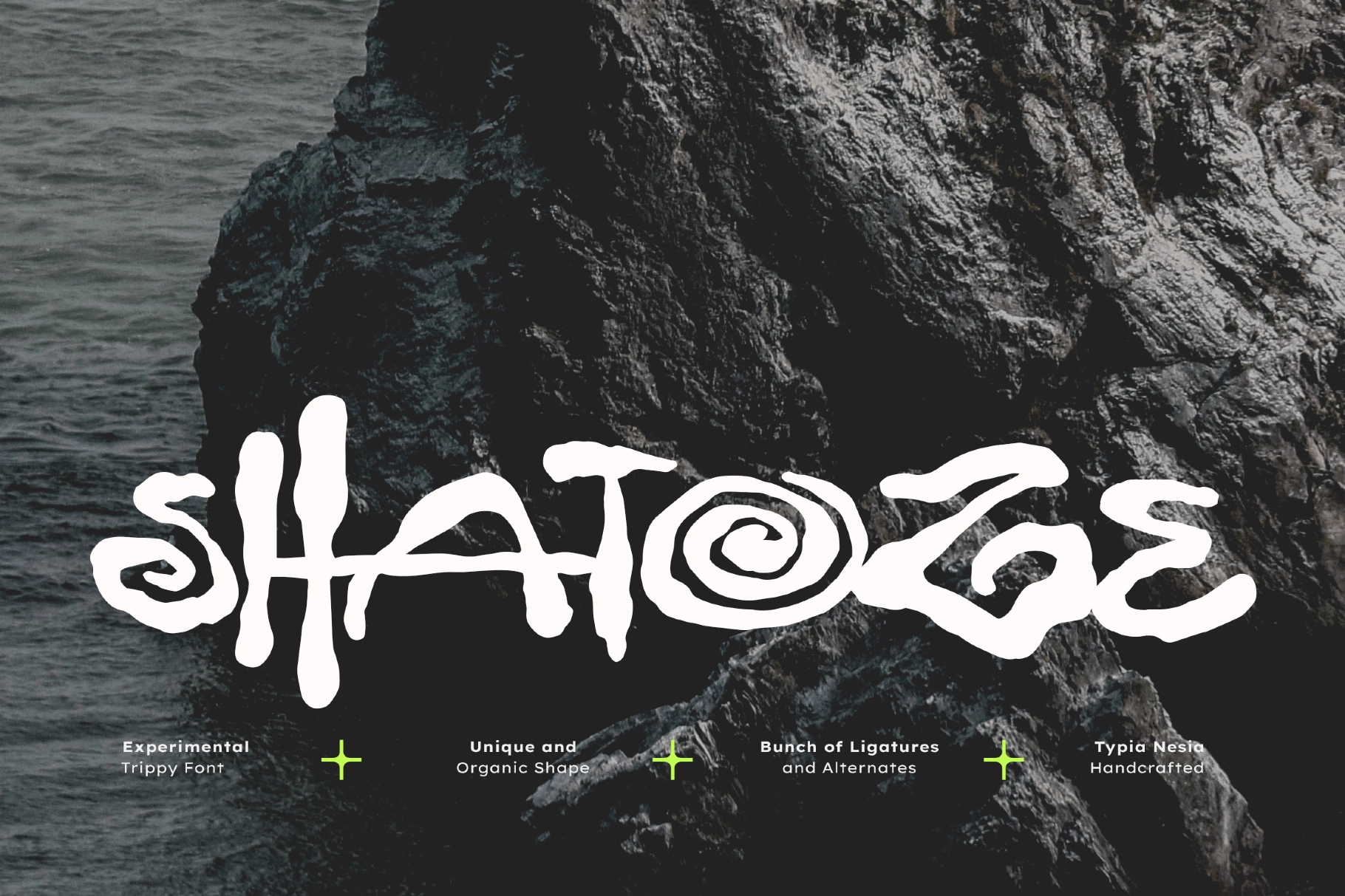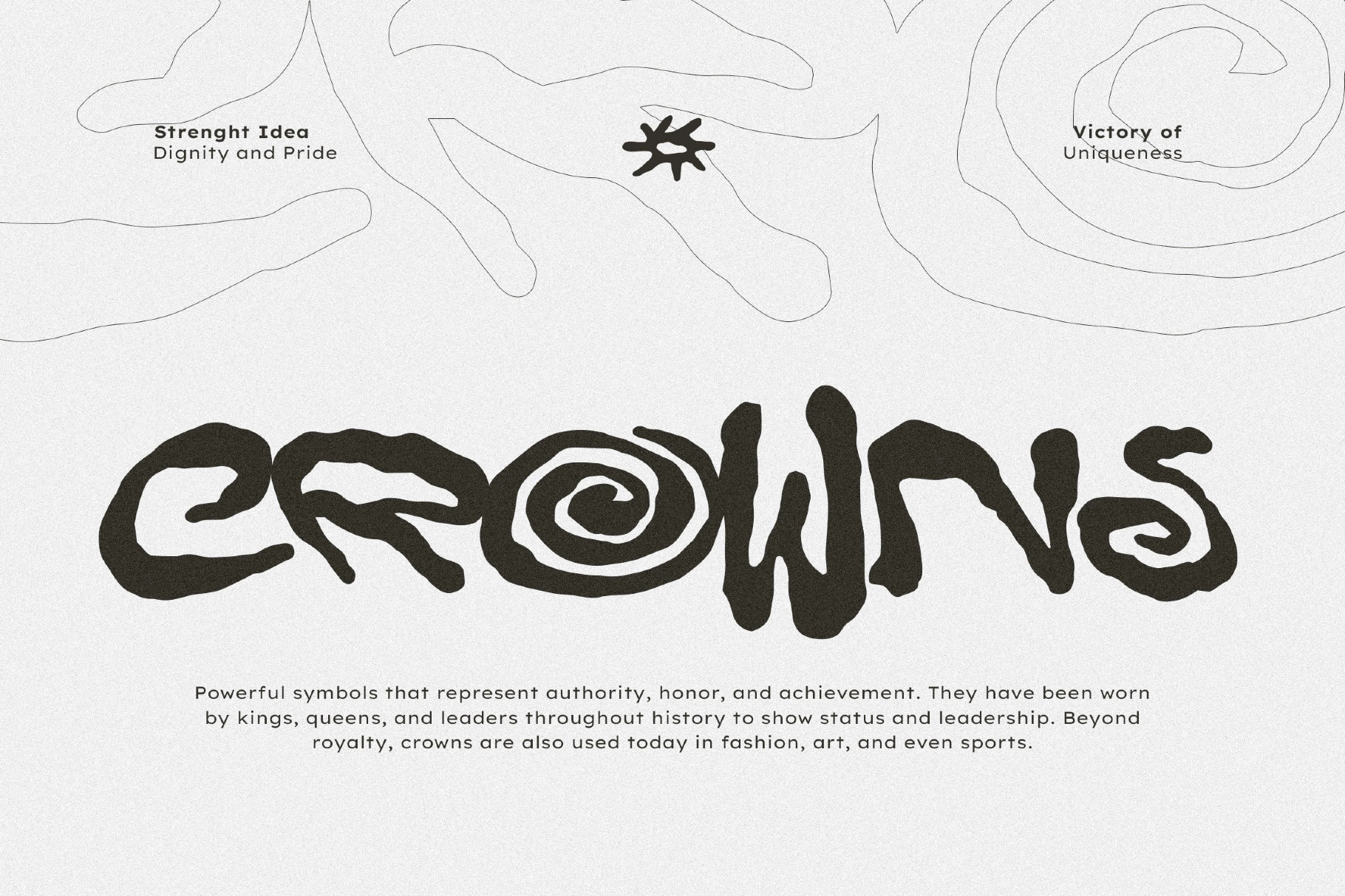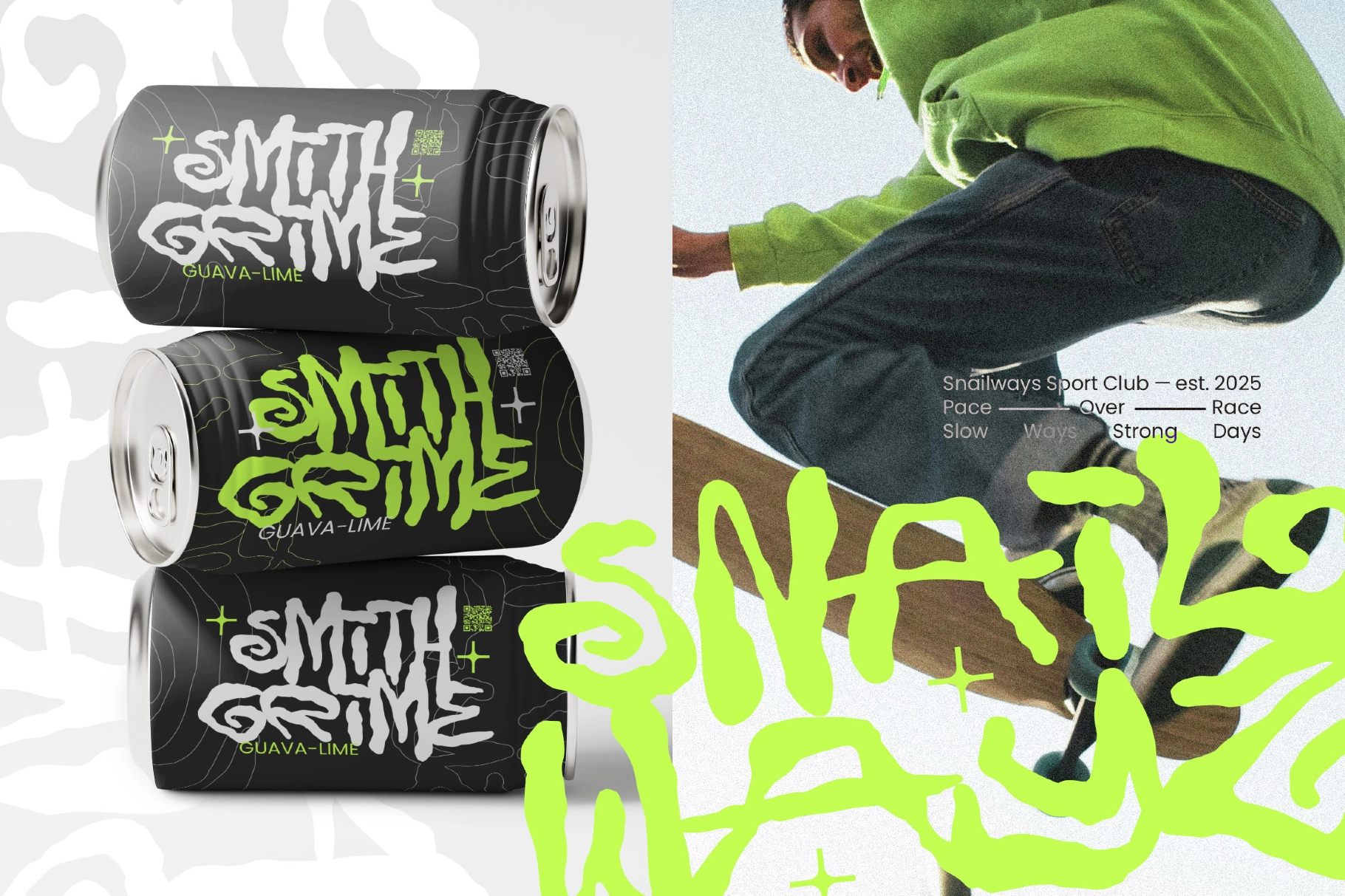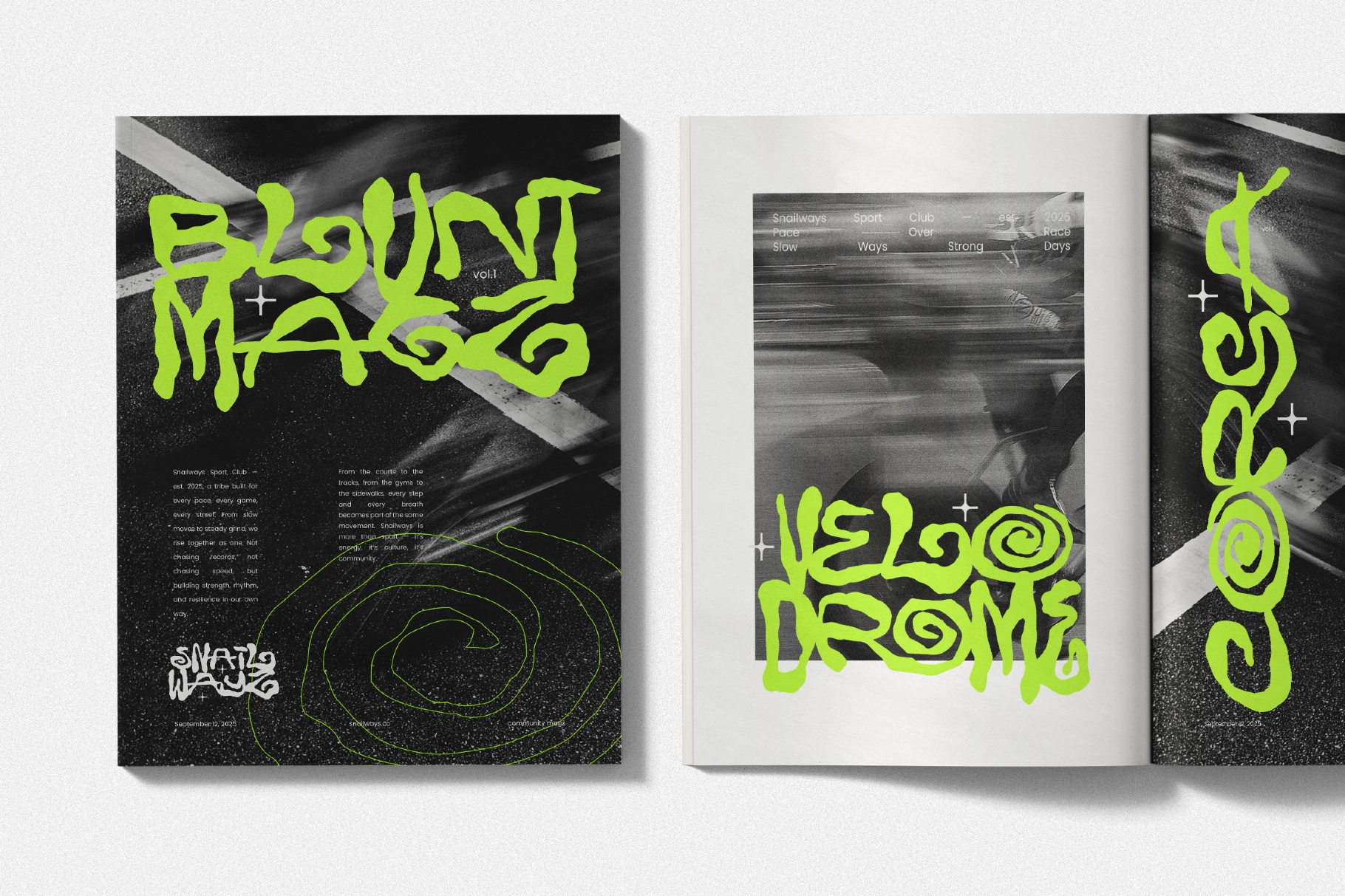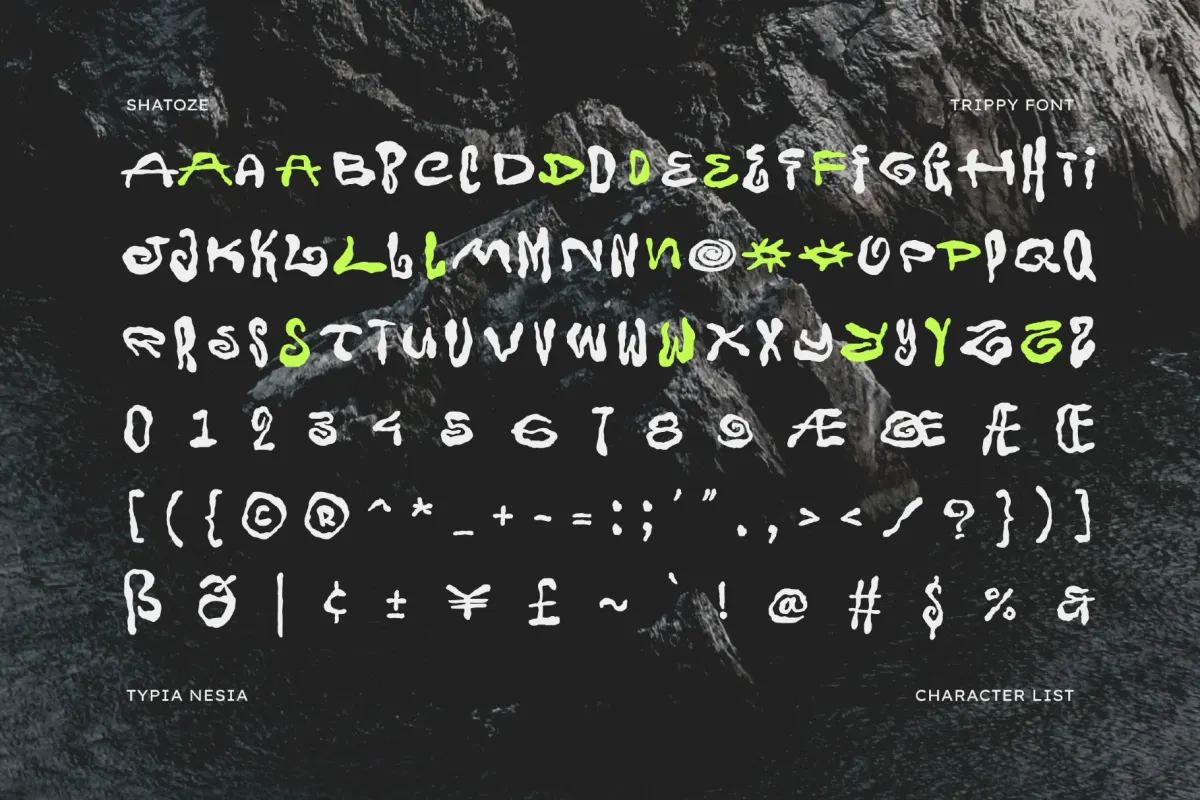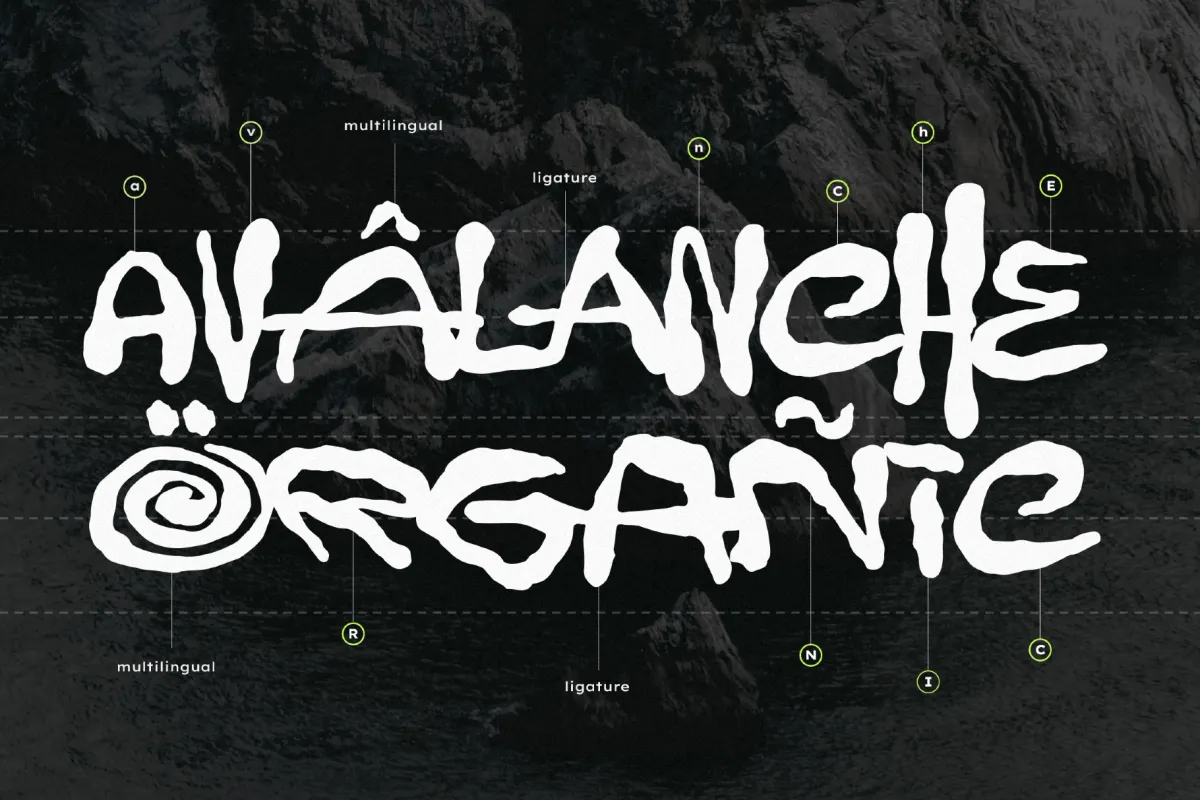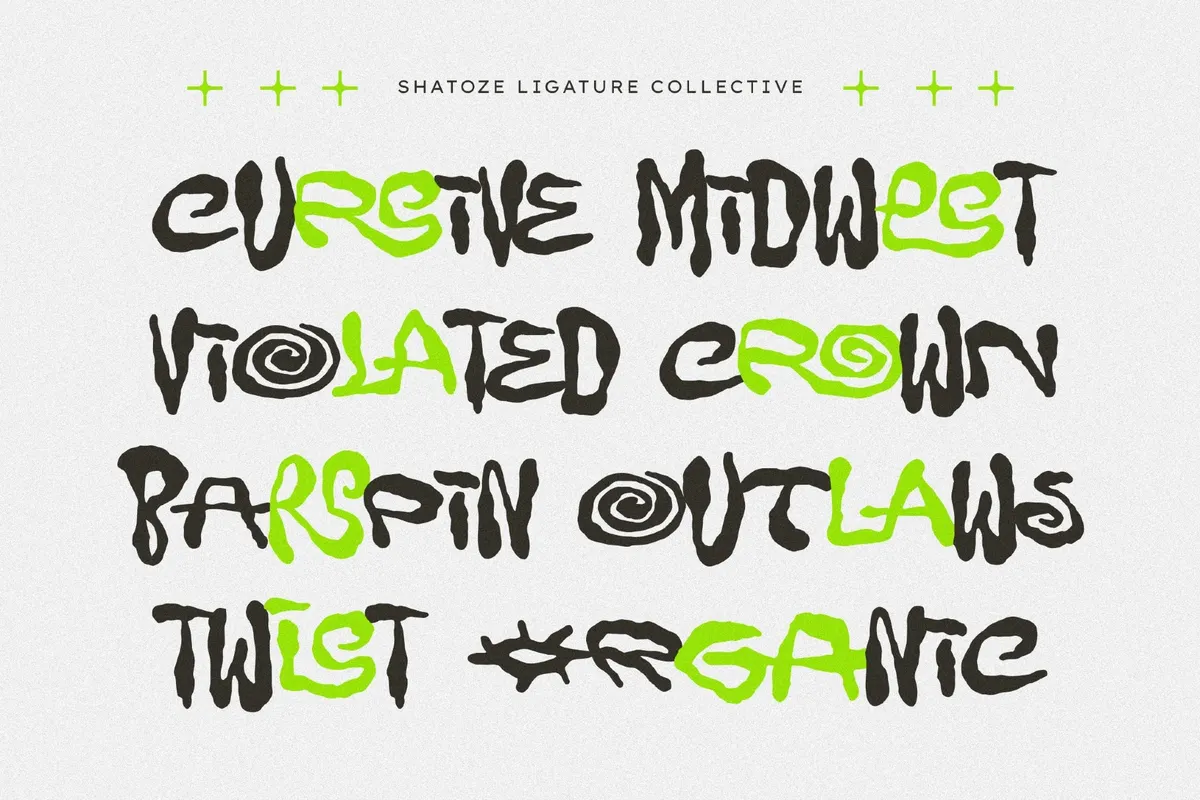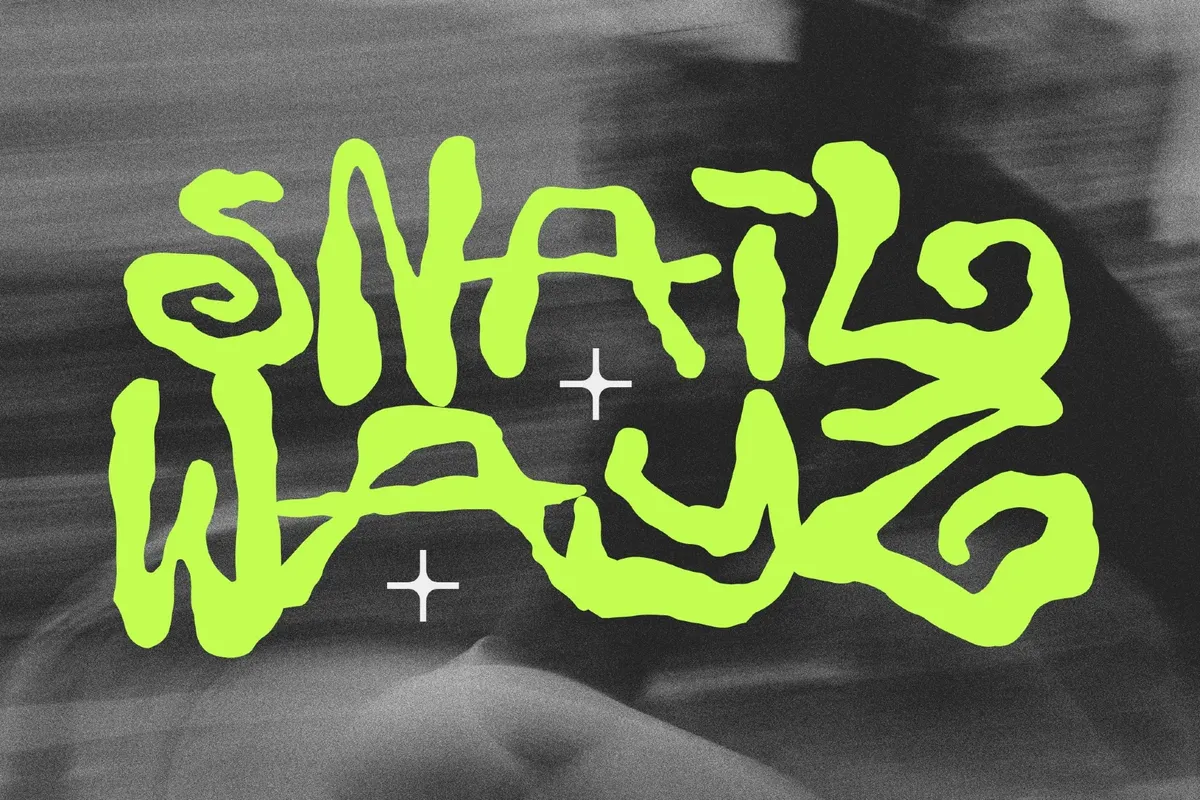
Shatoze
Shatoze is an Experimental Irregular Quirky Urban Graffiti Font that delivers a raw, expressive, and high-energy look for display purposes. Capturing the punk and street vibe, this typeface f eatures an irregular, hand-drawn aesthetic with a textured, grunge finish that can feel strikingly psychedelic. It is the ideal choice for creating unique and disruptive logos, posters, and branding for music festivals, sport events, and any project that requires both unique and experimental. With its extensive character set, ligatures, and alternates, this font allows you to deliver a raw, rebellious message that screams originality.